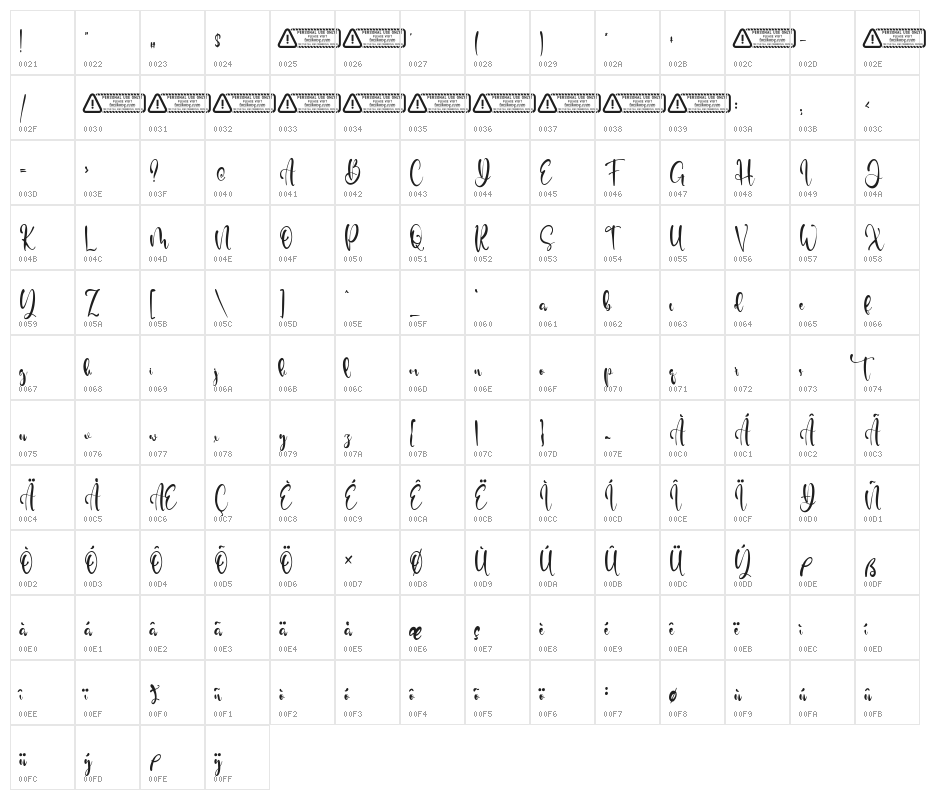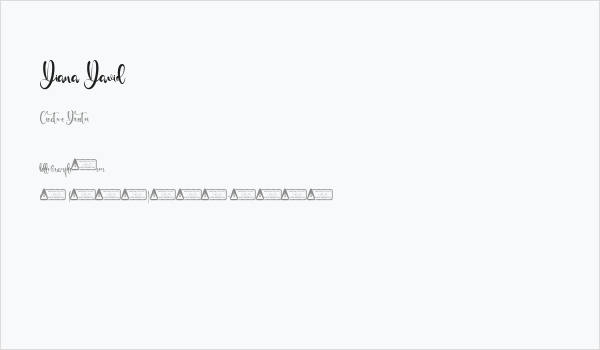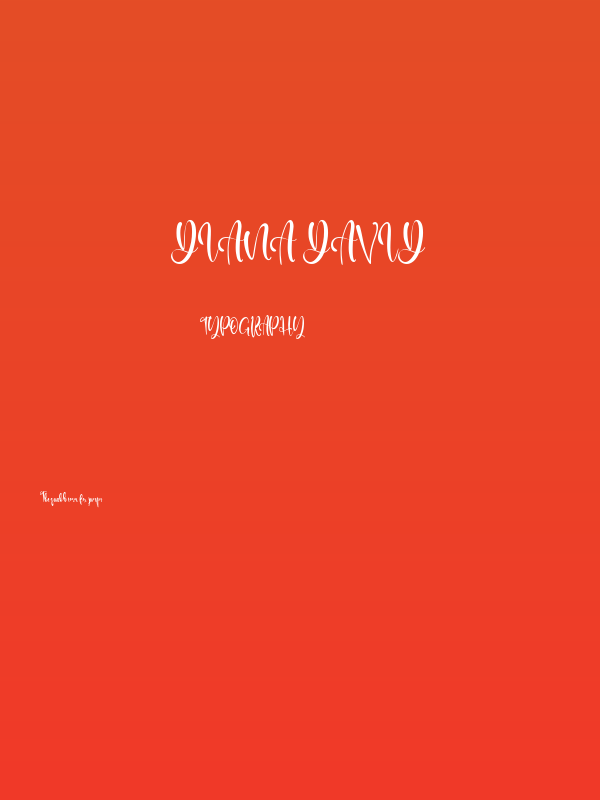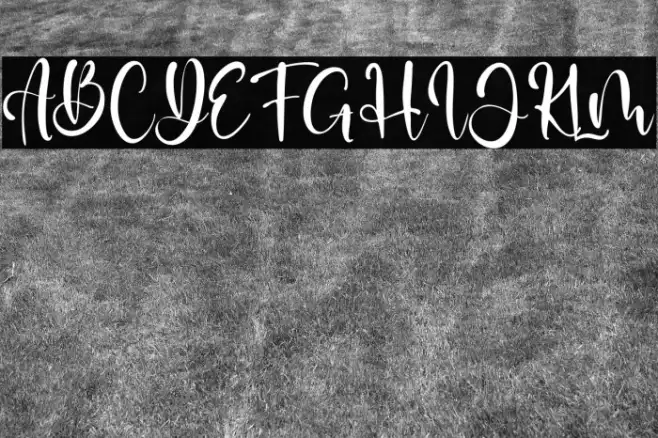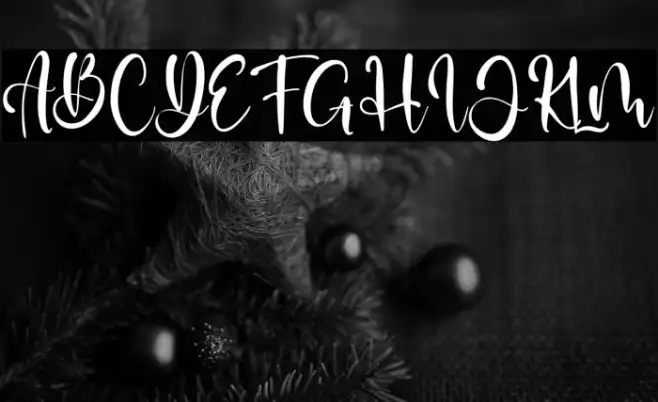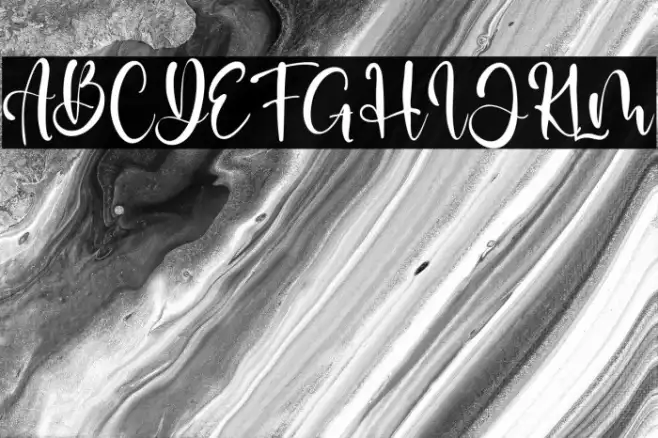
Diana David Font
Diana David Description
This font features an elegant and flowing script style, characterized by its smooth, cursive strokes and artistic flair. The uppercase letters are bold and sweeping, with a distinct flourish that adds a touch of sophistication. The lowercase letters maintain a consistent flow, with some characters featuring unique loops and curves that enhance the overall aesthetic. The numbers and special characters are designed to complement the script style, maintaining the same fluidity and elegance. This font is ideal for projects that require a personal, handwritten touch, such as invitations, greeting cards, and branding materials.
| Overall Style | Elegant, Artistic |
| Use Case | Headlines, Invitations, Branding |
| Proposed Projects | Ideal for wedding invitations, greeting cards, branding, and personal stationery. |